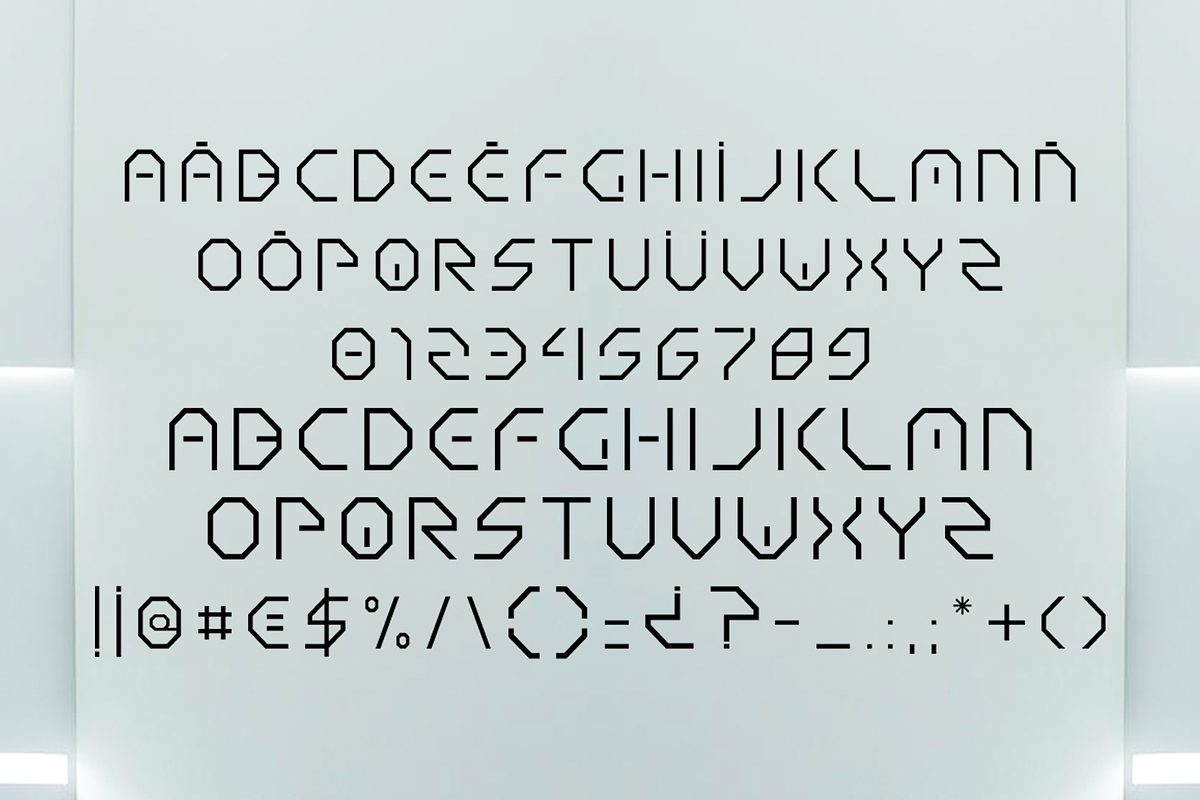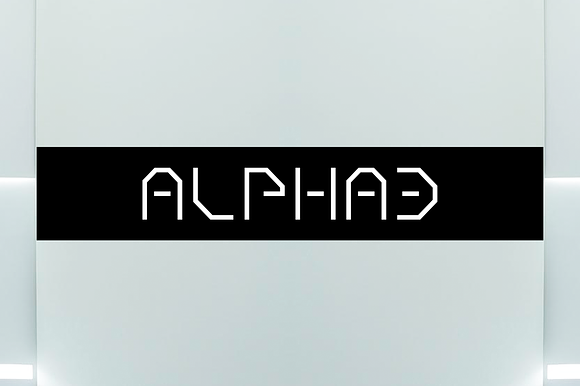
Alpha3
" A L P H A 3 " F o n t This Font contains 92 characters, including uppercase, lowercase, numbers and symbols. TTF + OTF format Registered source
Why Alpha3 is worth a look
Alpha3 by Qbotype Fonts fits naturally into Branding, posters, packaging, typography.